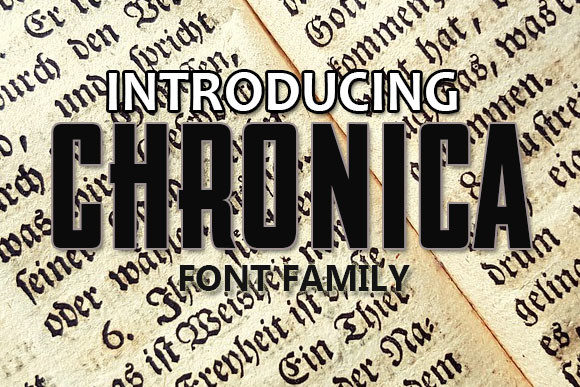
Introducing the almighty and audacious "Chronica Font" - the ultimate champion in the realm of display typography. This font exudes an aura of strength and boldness that's simply captivating. Picture your designs adorned with this typographic marvel - posters, flyers, or any printed creation you can imagine. The possibilities are endless!
The world is clamoring for unique and arresting designs. If you're a designer seeking fame in today's crowded marketplace, you need a font that's up to the challenge, a font that's audacious, unyielding, and ready to battle for your creative vision. You need a font that won't back down, a font that will lead your designs to victory.
Chronica Font is a font that demands attention. It doesn't blend in; it stands out like a defiant warrior on a battlefield, ready to conquer the hearts of your audience. Its thick and forceful letterforms exude a sense of authority, while its impeccable detailing ensures readability even in the smallest of sizes. From captivating posters to striking flyers, this font is your secret weapon to unleash a world of design possibilities.